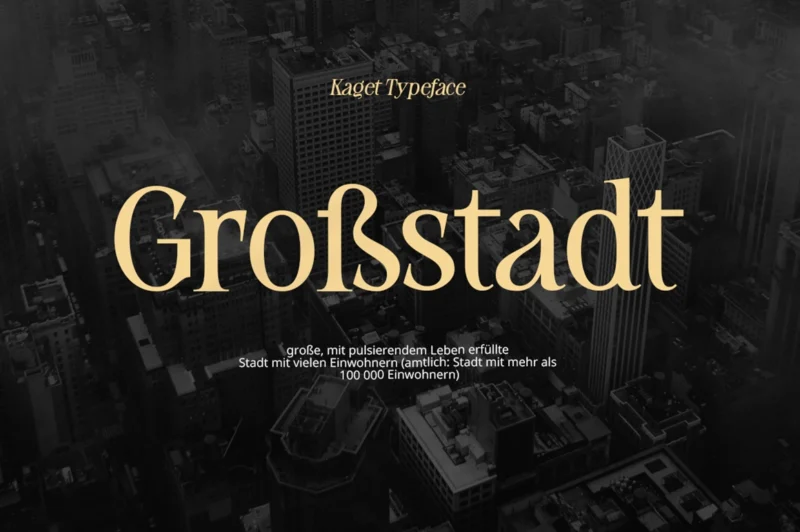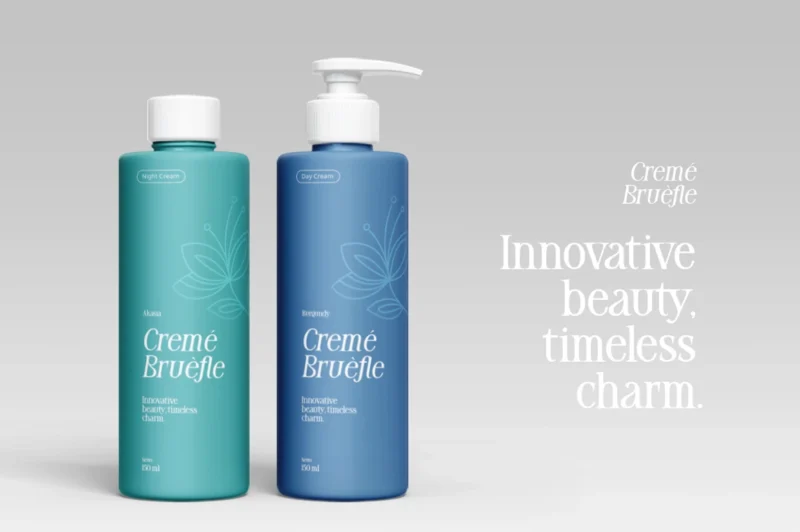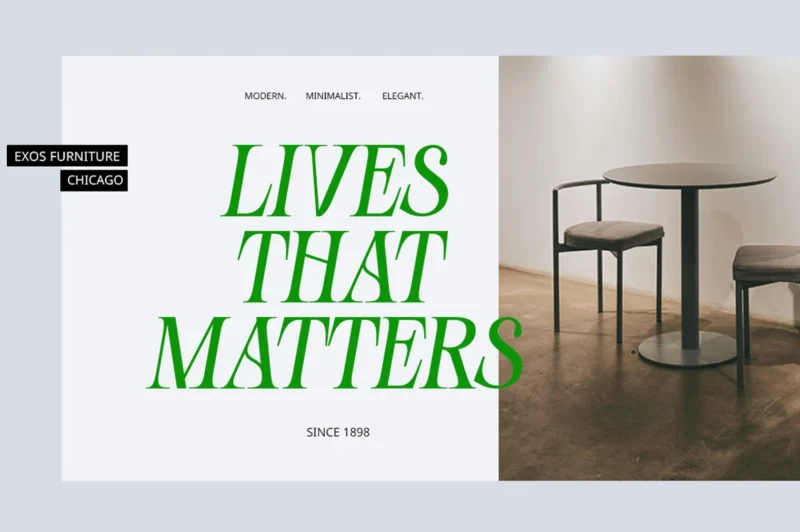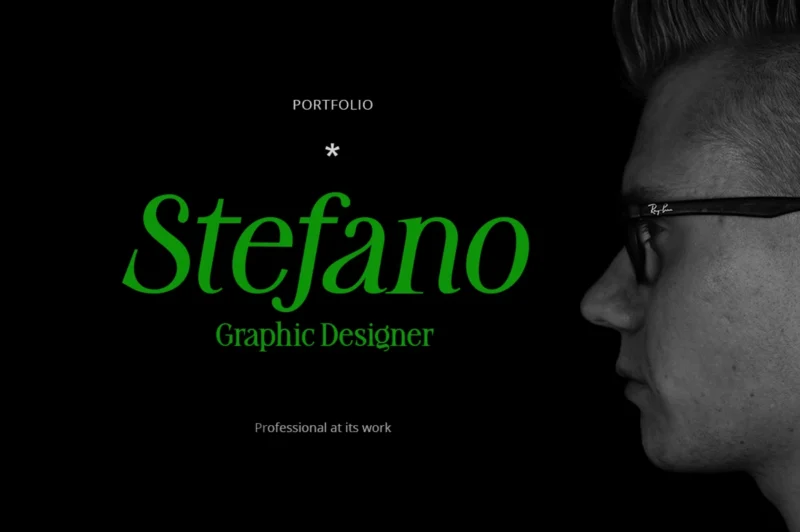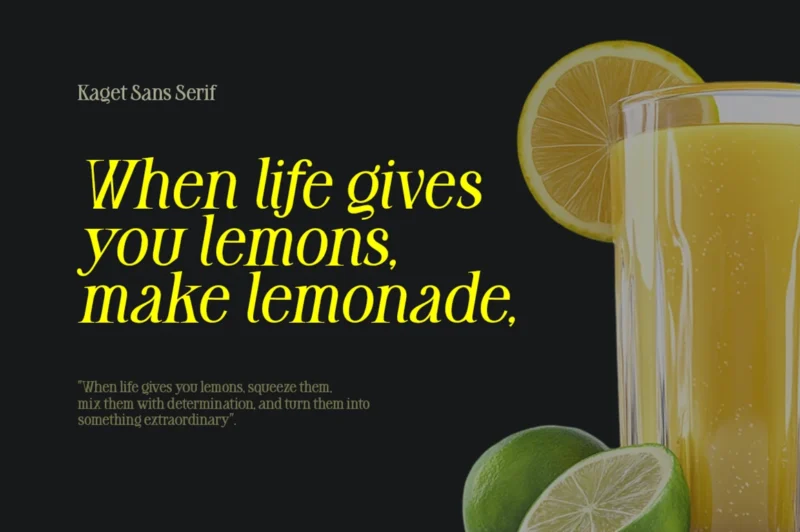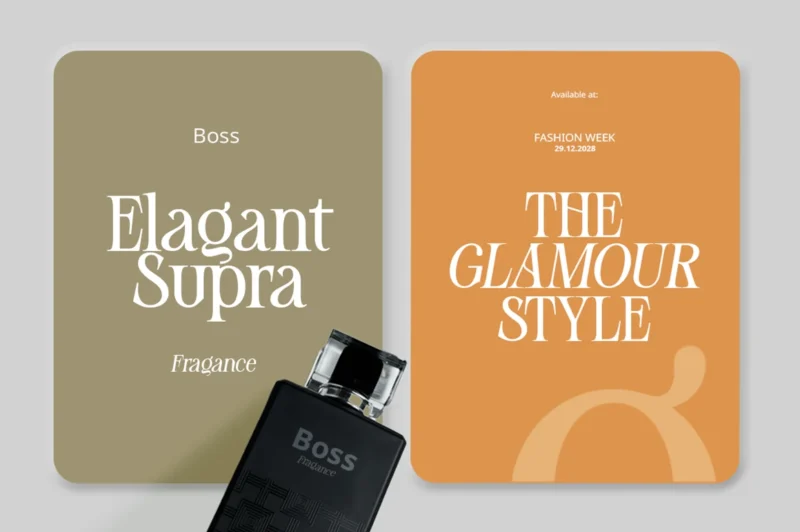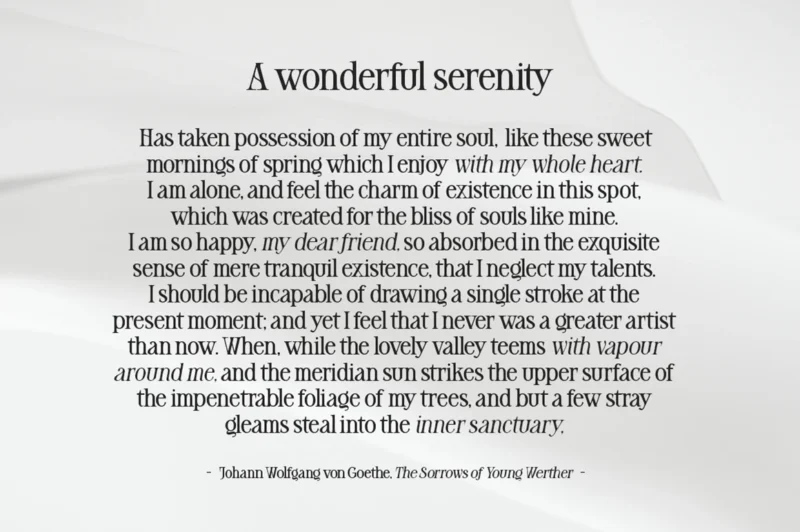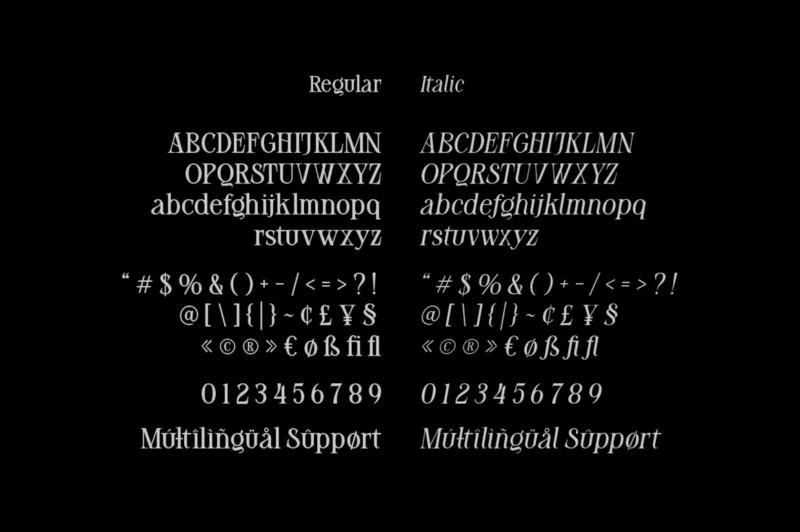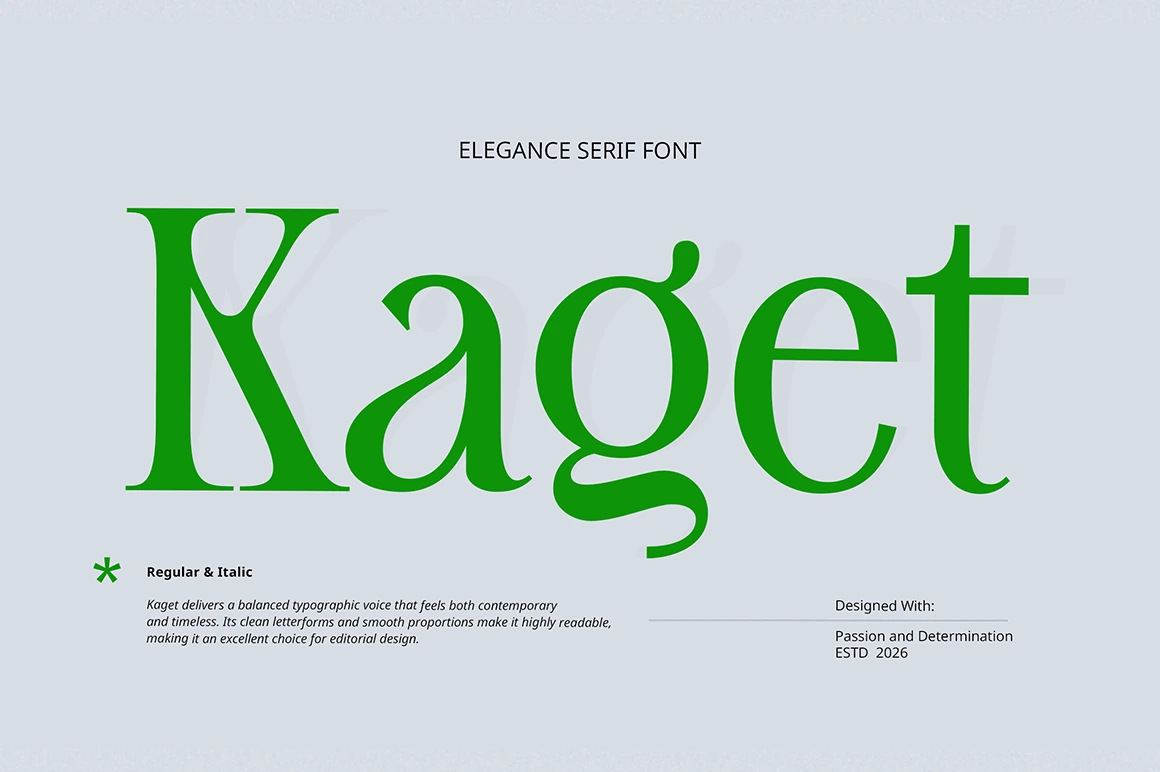
Kaget Regular
Kaget Italic
Description
Kaget is a Modern Elegance sans serif font with a clean and versatile design. Available in Regular and Italic styles, it is perfect for editorial layouts, headers, body text, quotes, and a wide range of print designs. Clean, readable, and timeless, Kaget adds a refined elegance touch to any project.
Features:
- Timeless Elegance Serif Font
- Basic Latin Glyphs
- Regular & Italic Glyphs
- Numeral and Punctuation
- Currencies
- Multilingual Support